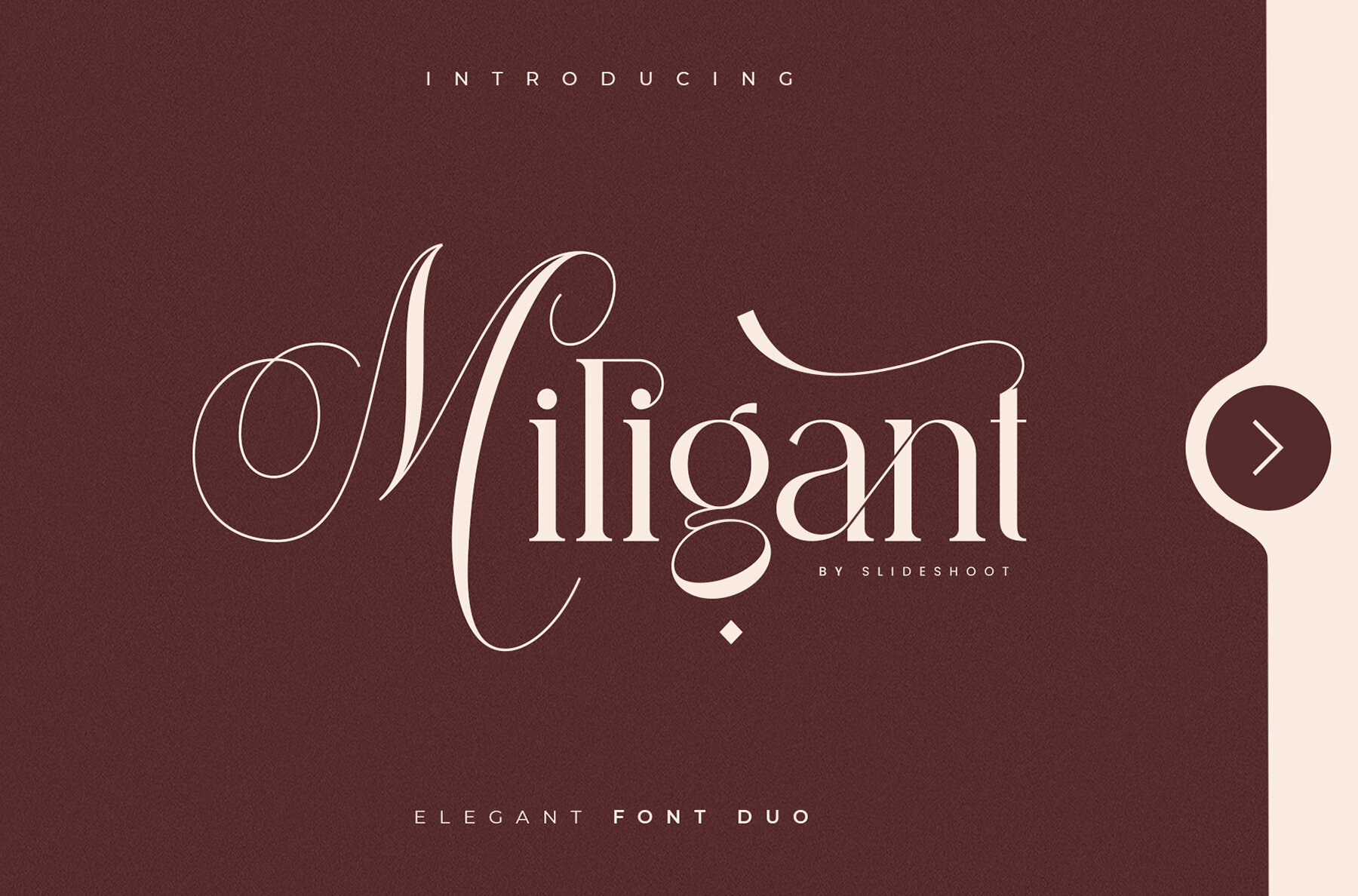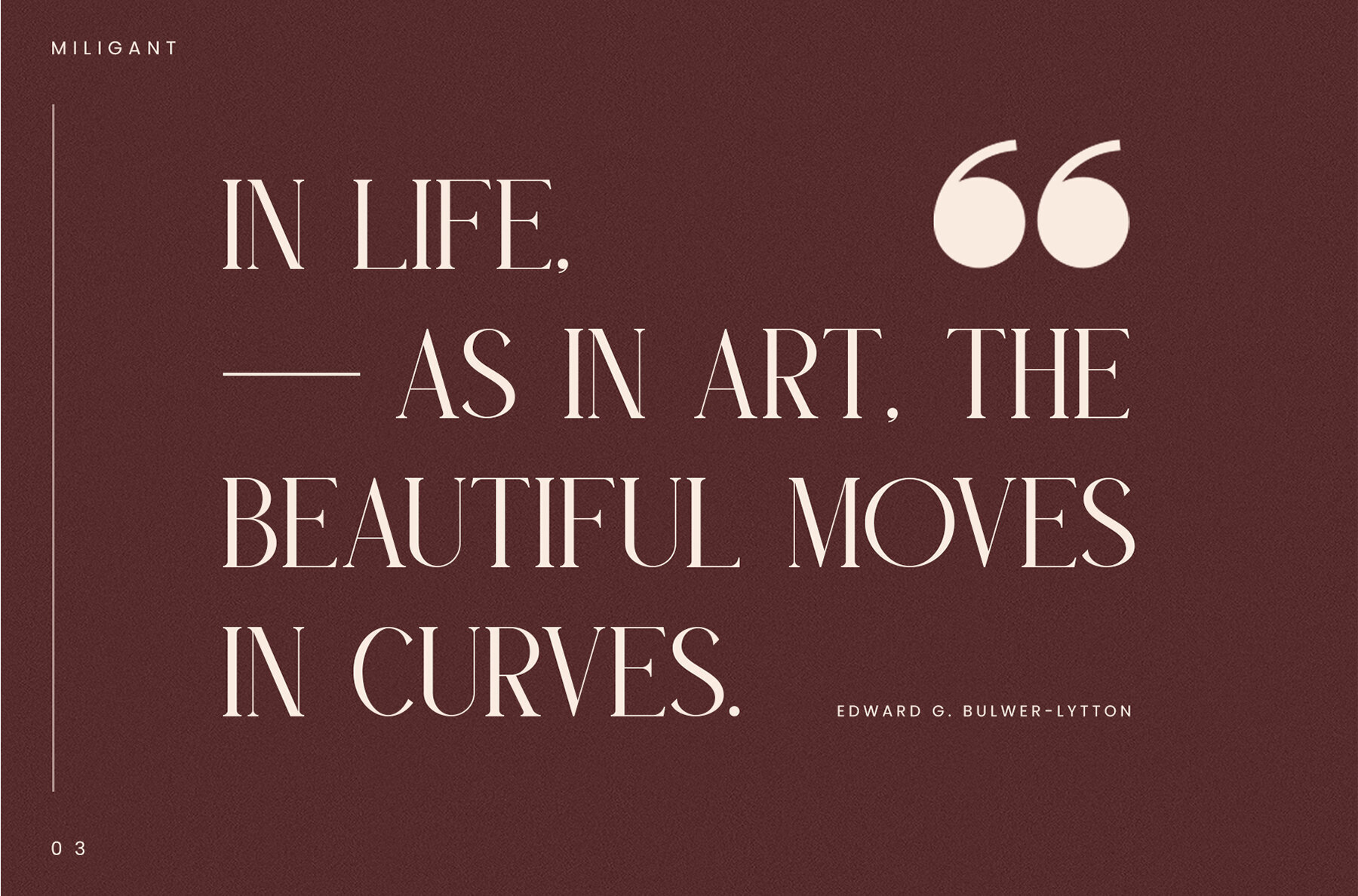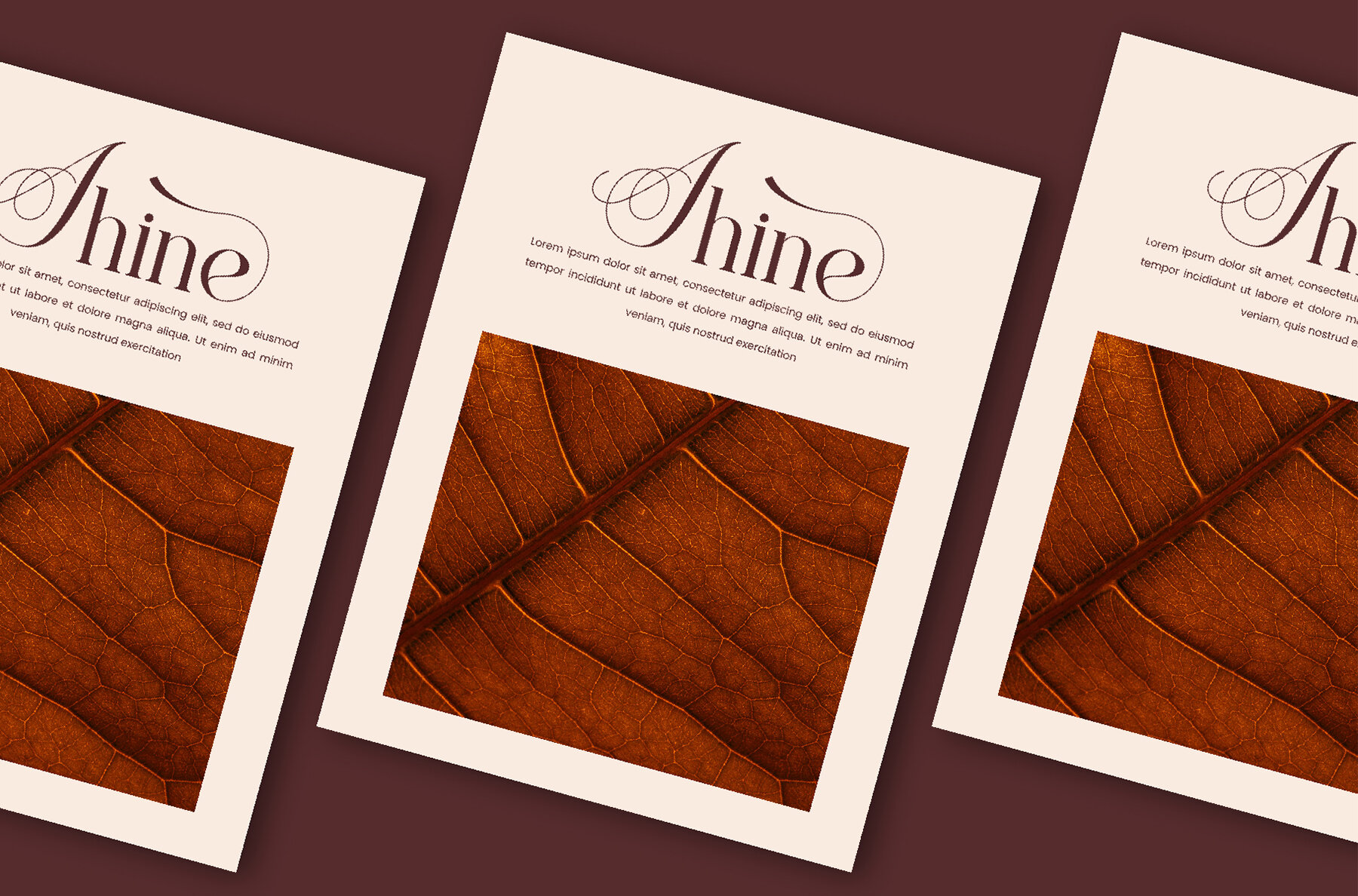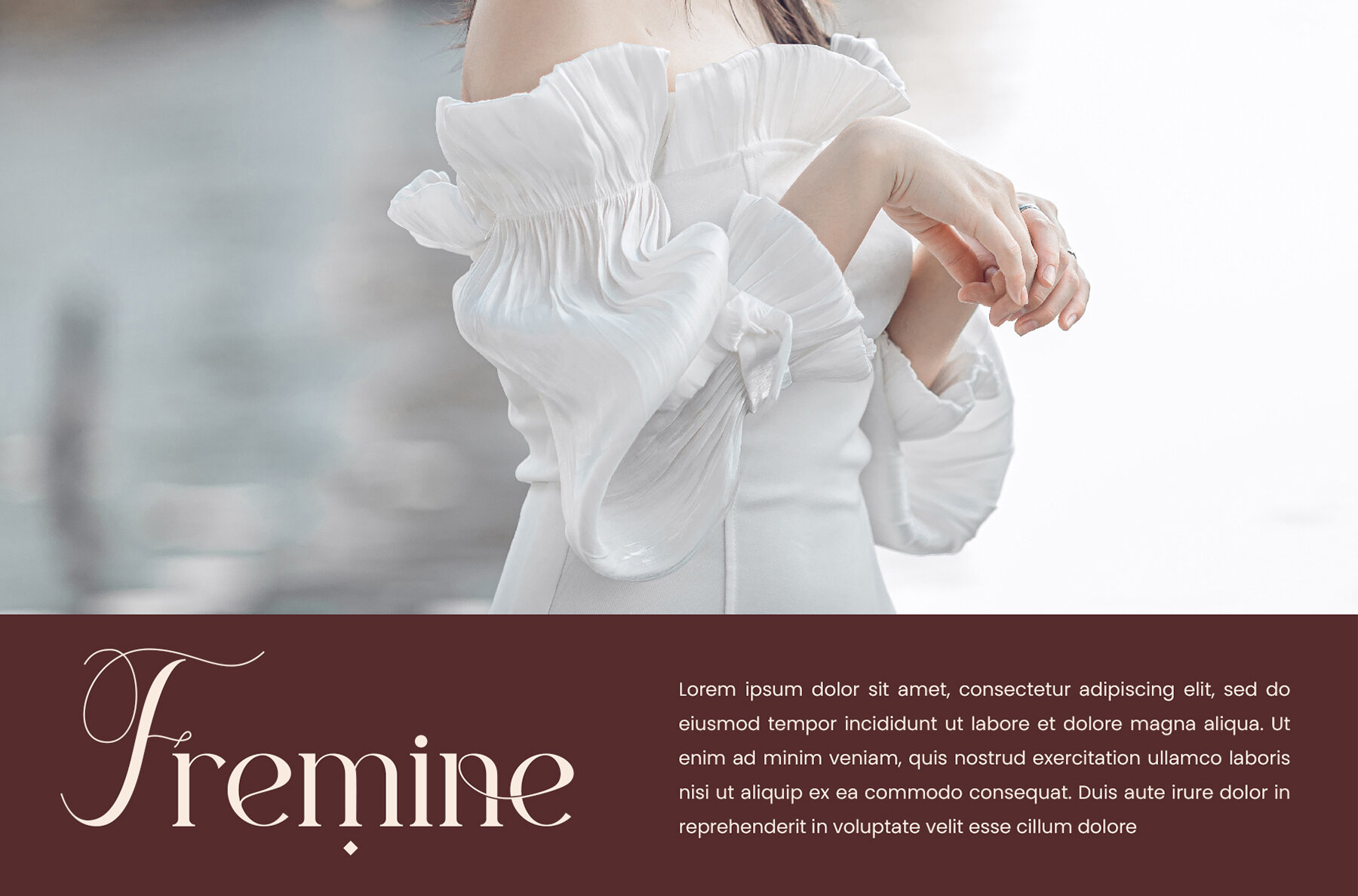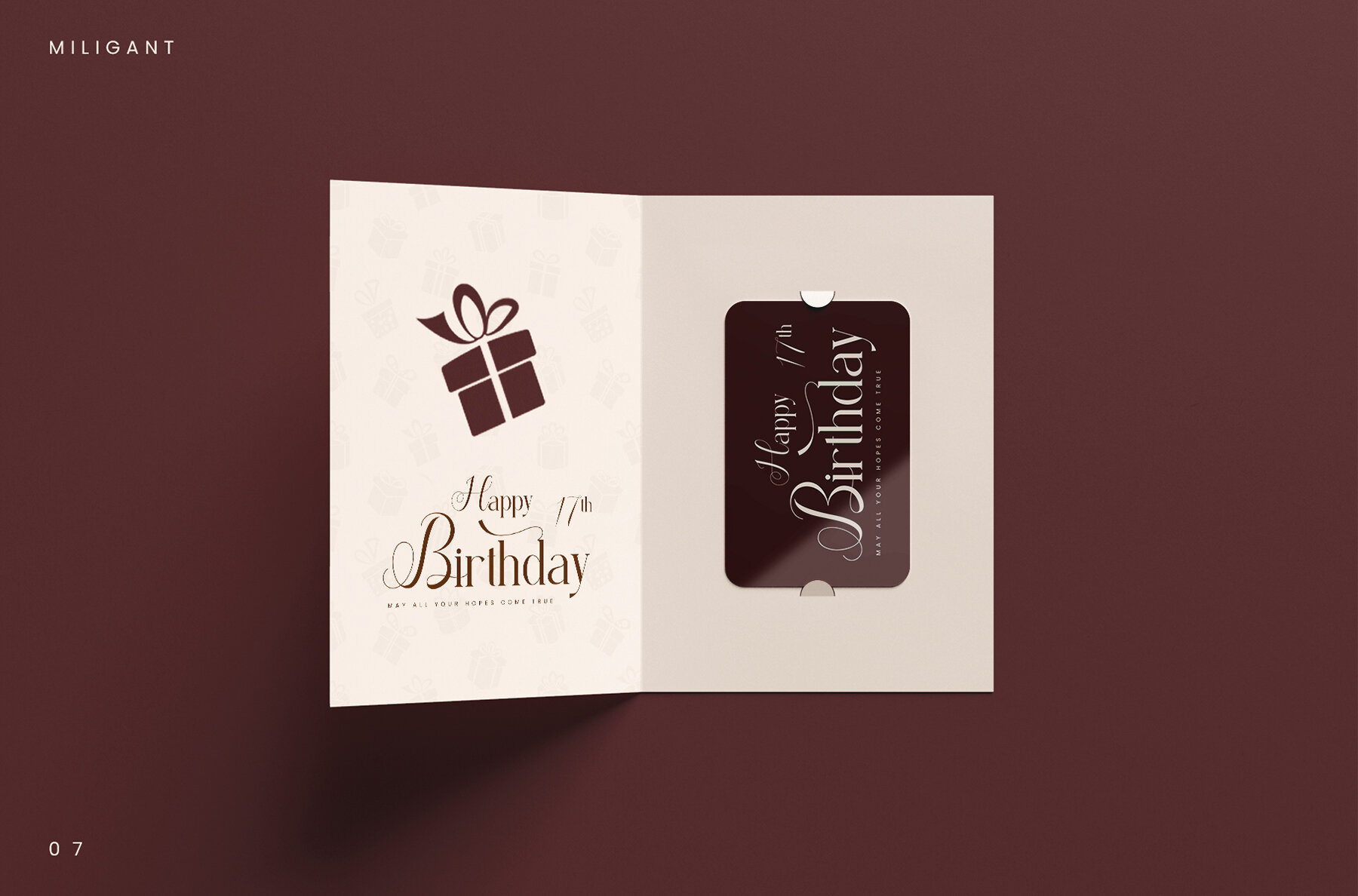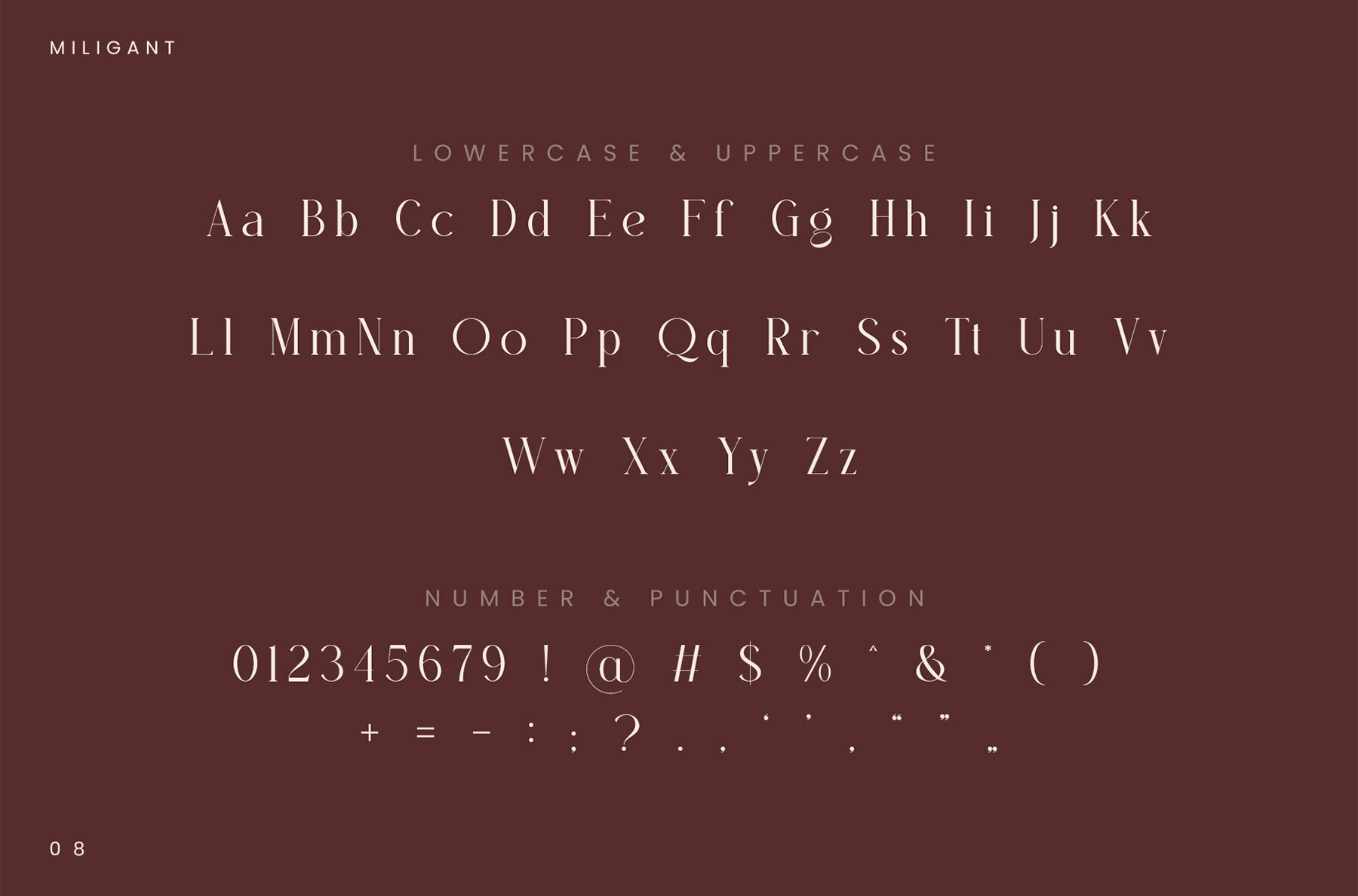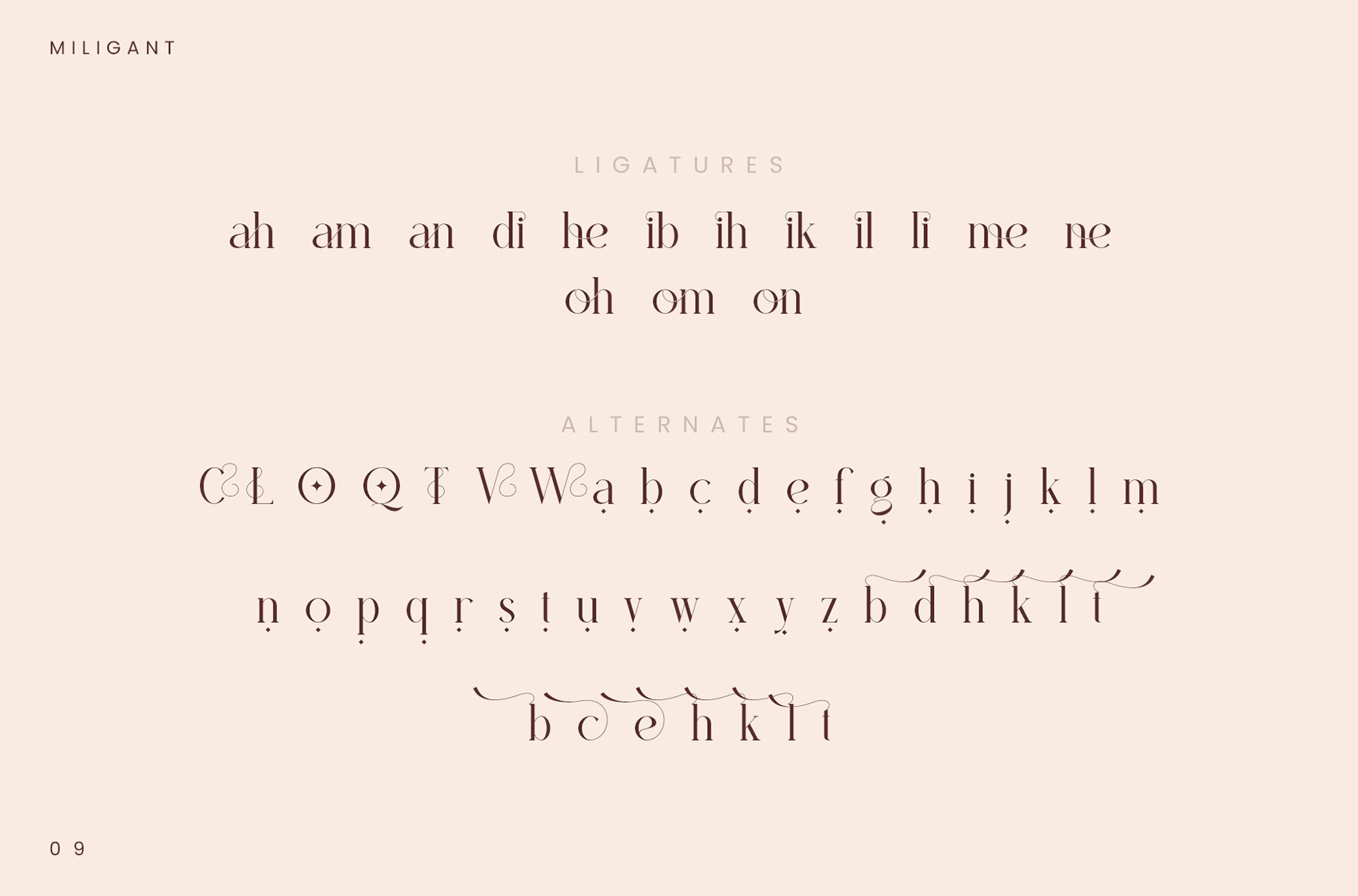
Miligant Font
Miligant combines the charm of calligraphy with the modern appeal of serif fonts. This font features a beautiful character, ideally suited for a variety of design projects, such as invitation cards, company logos, film titles, business cards, book titles, and more. It brings together sophistication and elegance, making it a versatile choice for any creative endeavor.Miligant: Elegant Calligraphic Script and Modern Serif Font